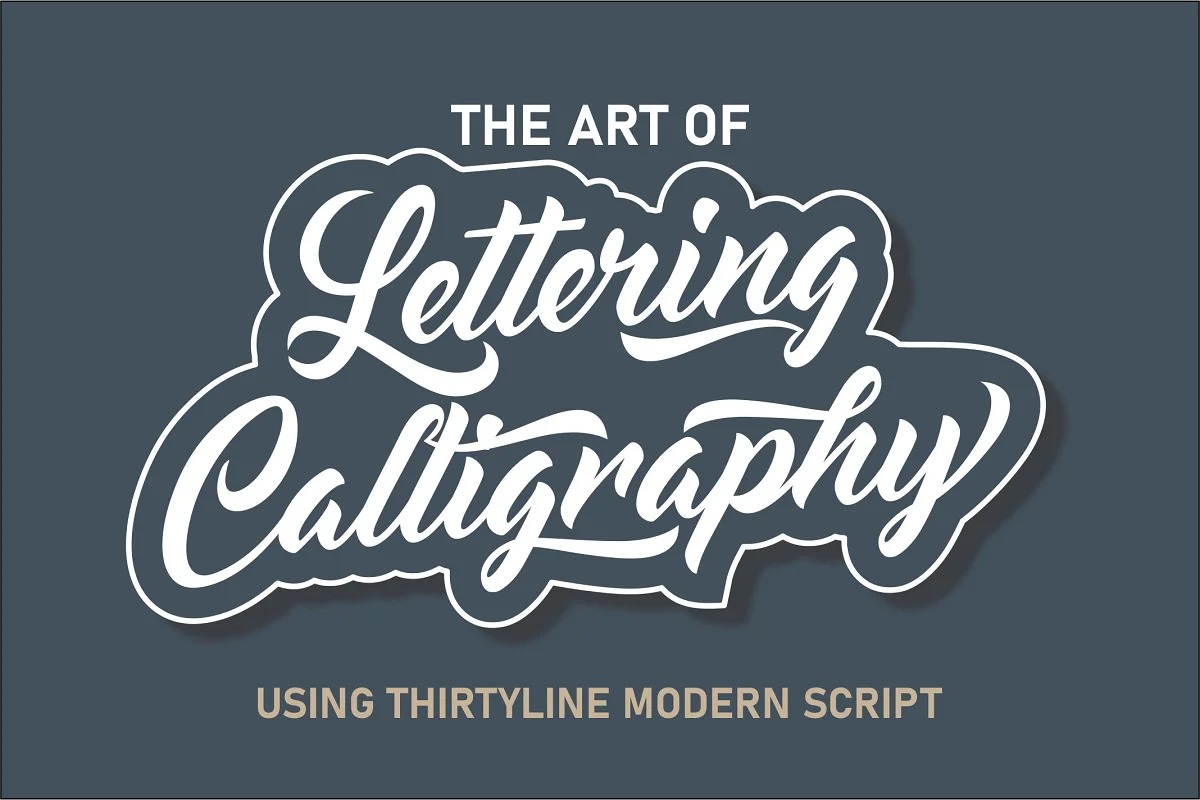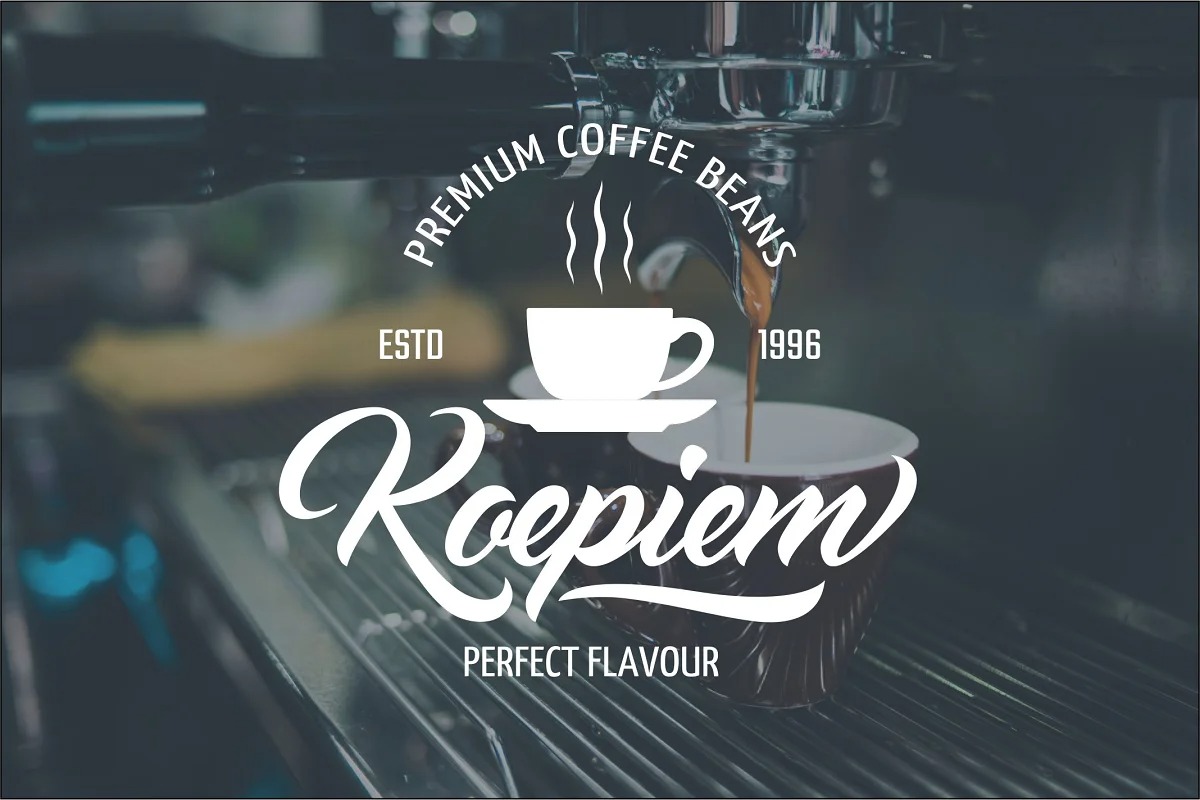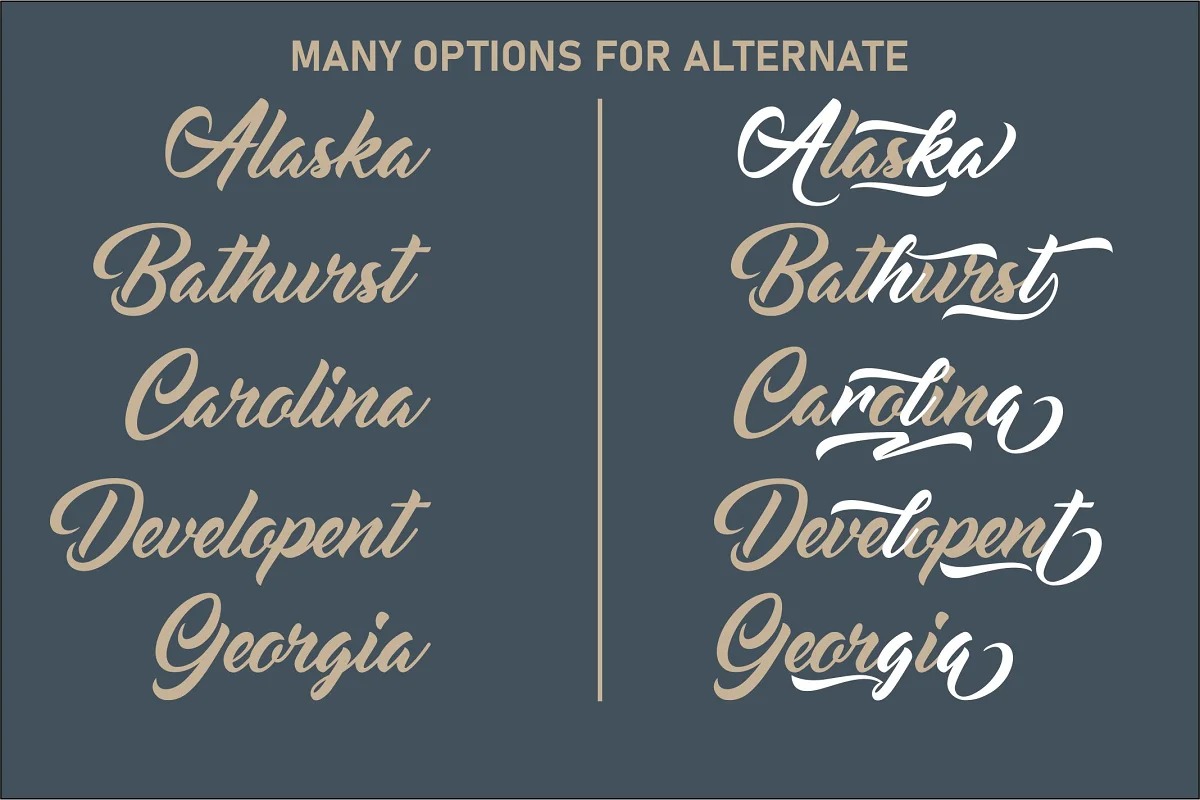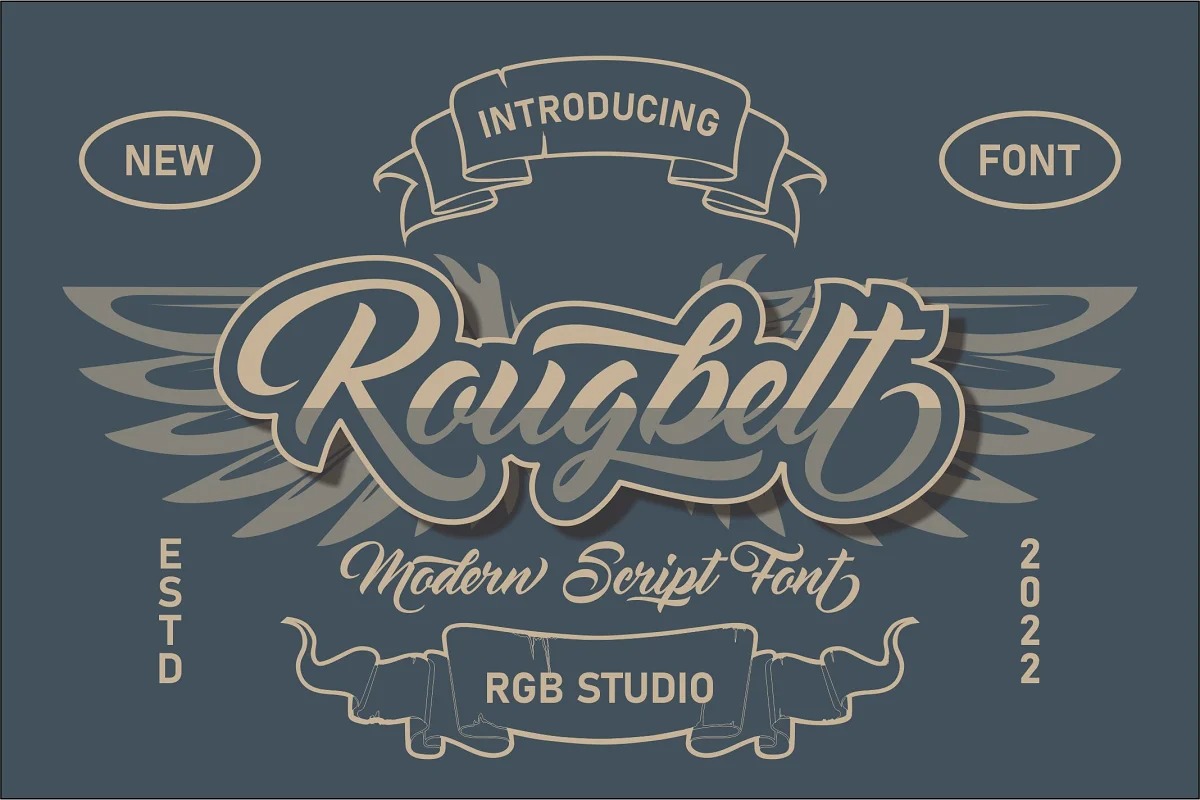
Rougbelt Font
Rougbelt Script Font is a commercially elegant retro script typeface! Inspired by the hand-cut lino scripts of mid-century advertising, Burbank commands attention with its playful display of connective letterforms. This font reads as strong, confident, and dynamic and can add tons of nostalgic character to your designs. This font is PUA encoded which means you can access all of the amazing glyphs and ligatures with ease!